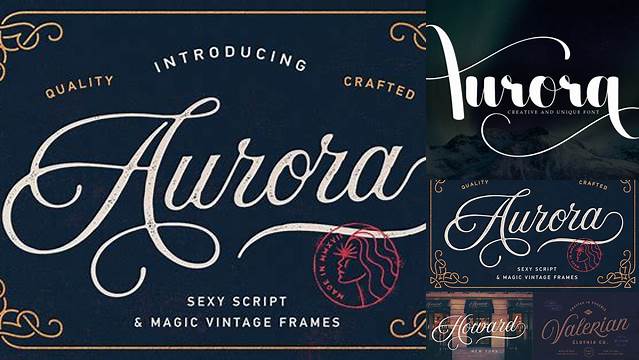
Hey guys! Ready to dive into the world of beautiful typography? We're going to talk all about the Aurora Script Font Free Download! This font is seriously gorgeous, and it's perfect for a ton of different projects. Whether you're a seasoned designer or just starting out, getting your hands on this font can really elevate your work. In this guide, we'll cover everything from where to find the free download, how to install it, and even some cool ways you can use it. So, buckle up, because we're about to embark on a typography adventure! Let's get started, shall we?
1. Understanding the Allure: Why Aurora Script Font?
Alright, so why is everyone so hyped about the Aurora Script Font? Well, let me tell you, it's a stunner. This font typically boasts elegant, flowing lines that mimic handwritten calligraphy. The beauty of the Aurora Script Font lies in its versatility. It adds a touch of sophistication and personality to any project, from wedding invitations to branding materials. Imagine seeing your brand's logo in a font that screams luxury, or creating a website that feels warm and inviting. That's the power of a well-chosen script font! The curves and delicate details make it stand out, conveying a sense of creativity and artistry that many other fonts simply can't match. Moreover, its readability, when used correctly, makes it a great choice. Think about those classy signatures you see on high-end products; this font often emulates that feeling of exclusivity. If you're looking to create a high-impact visual experience, the Aurora Script Font is a fantastic choice to make your design projects pop. This particular font family often includes a variety of weights and styles, which can open up a whole realm of possibilities. You'll often find different variations, giving you even more creative control to customize your project. This allows you to tailor the font precisely to your vision. Whether you want something bold and eye-catching or a more subtle and refined look, the Aurora Script Font has got you covered. So, whether you're looking to impress clients or just want to enhance your personal projects, using this font is a surefire way to add a touch of class and style.